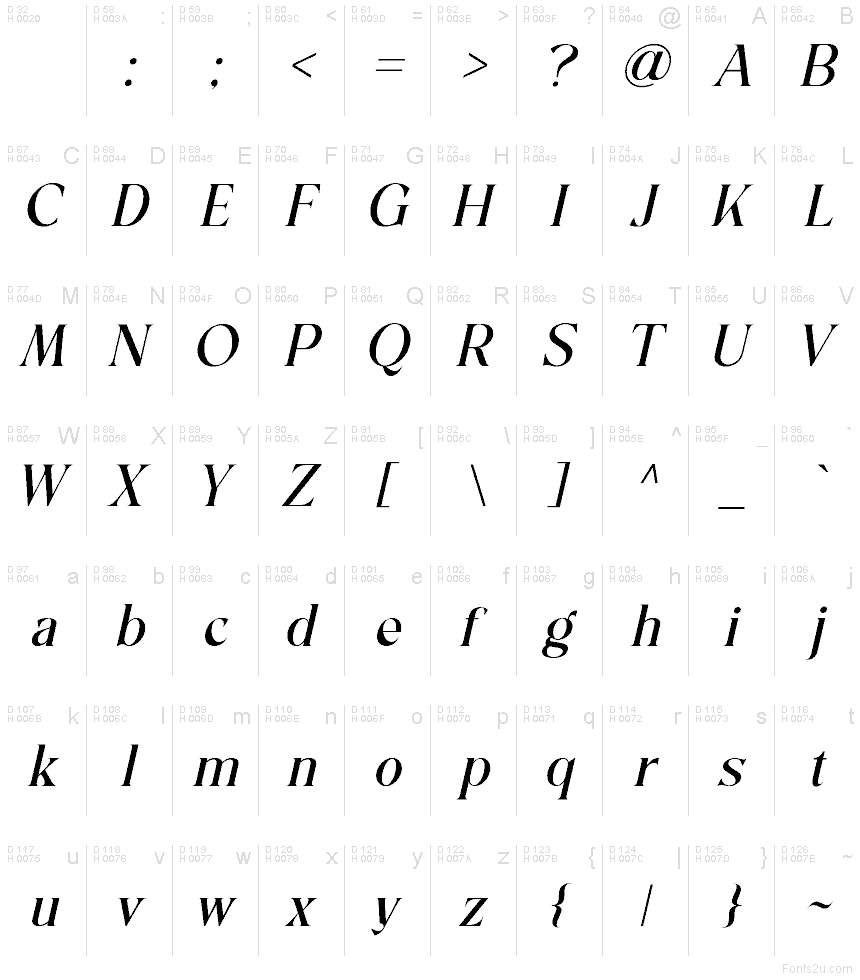
Orliet Pro Italic
Orliet Pro Italic font by Joko Setiono is a modern display free serif font with an elegant and sophisticated design. The professional style of the characters gives off a sense of seriousness that can be recognized at first glance. That design includes classic influences and makes the Orliet Pro Italic font easily used within different projects.
When a project requires delicate typography, this font can set both texts and logos apart from what others may use. Try it with magazines, invitations, brand identity designs, art books, blog articles, or even unusual posters for events like weddings.